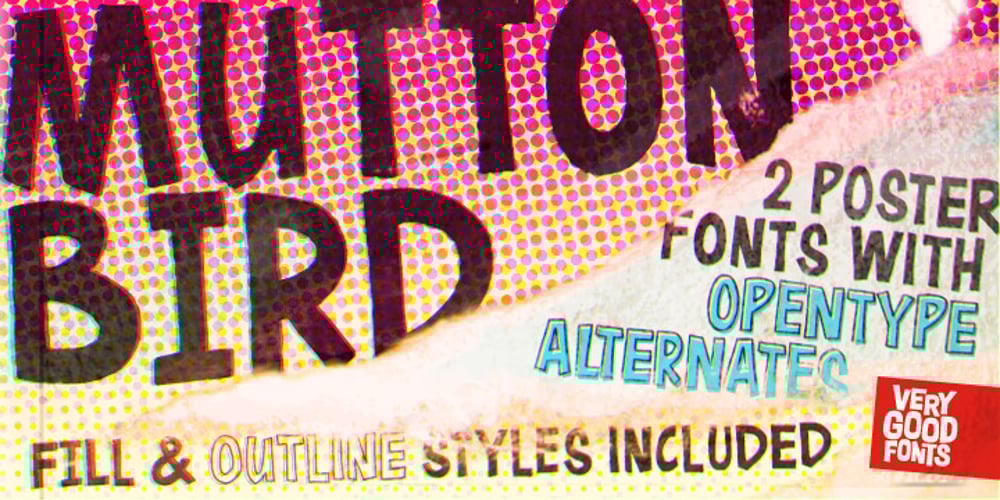
Muttonbird Font Family was designed by Paul Brannelly and published by Very Good Fonts. Muttonbird contains 3 styles and family package options. Muttonbird is a wooly, meaty, and New Zealand native family of two fonts. The plentiful OpenType contextual alternate give both fonts an authentic hand drawn feeling.